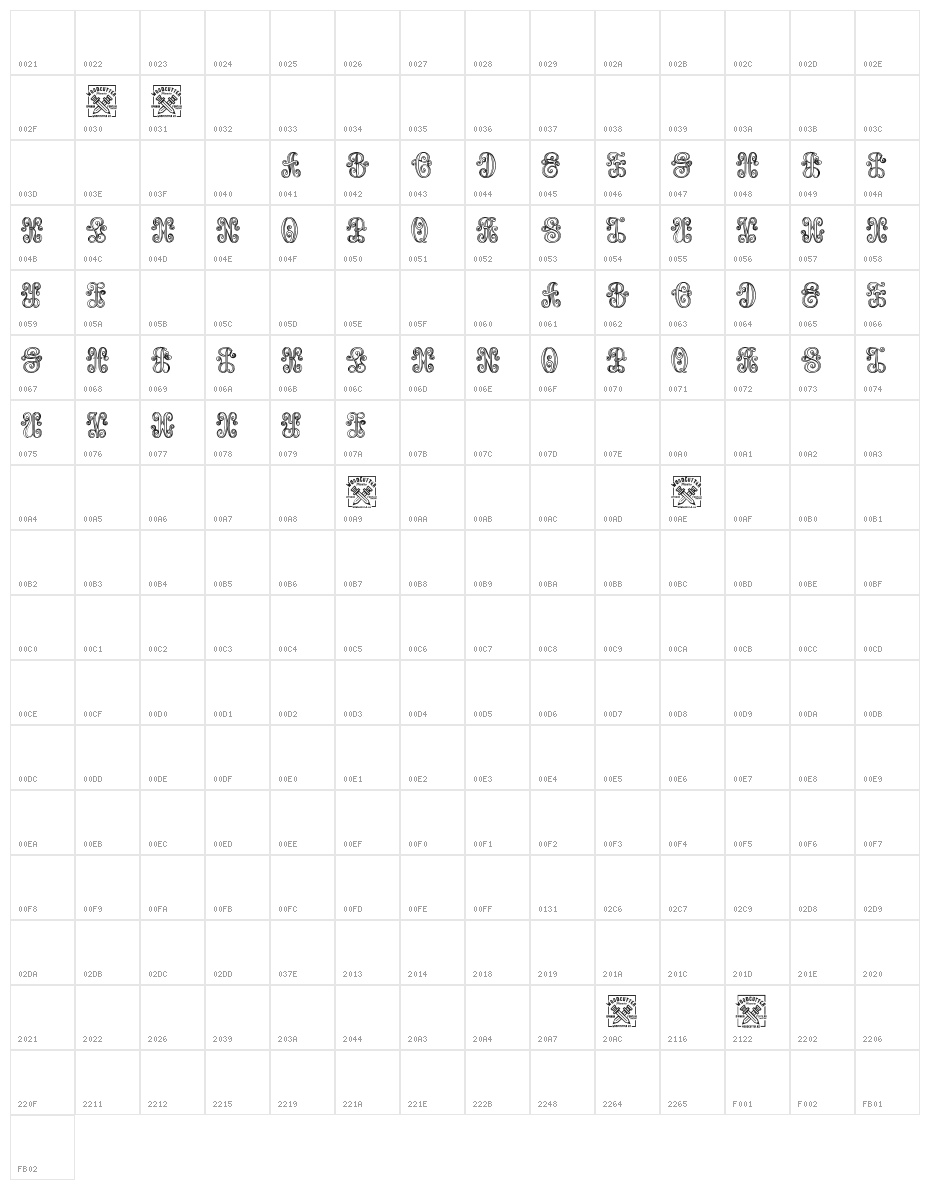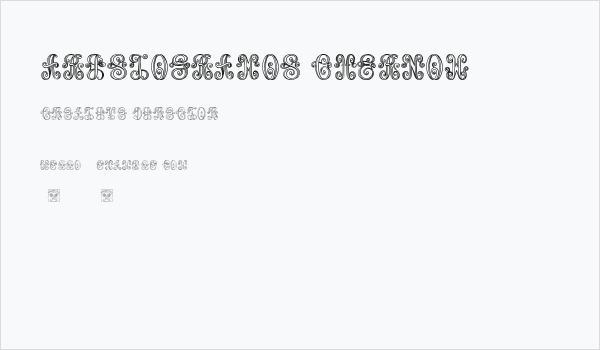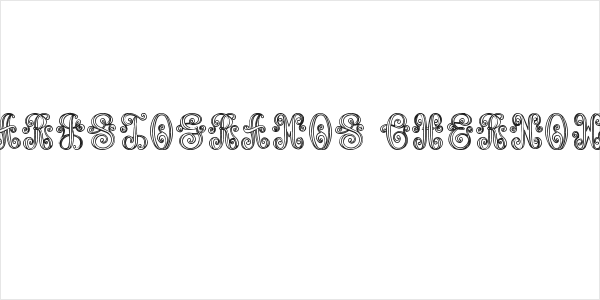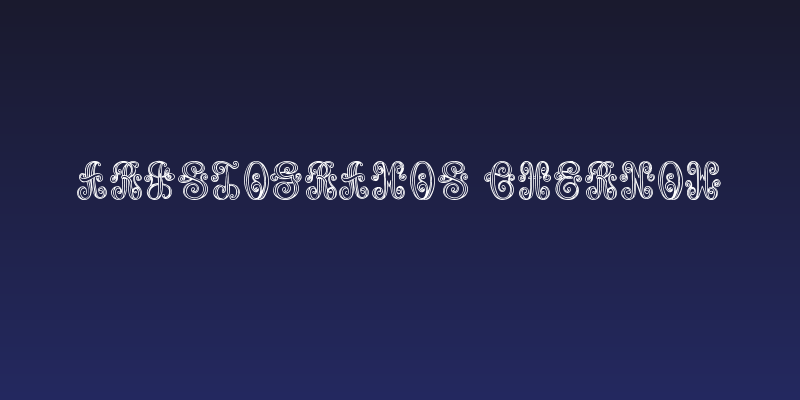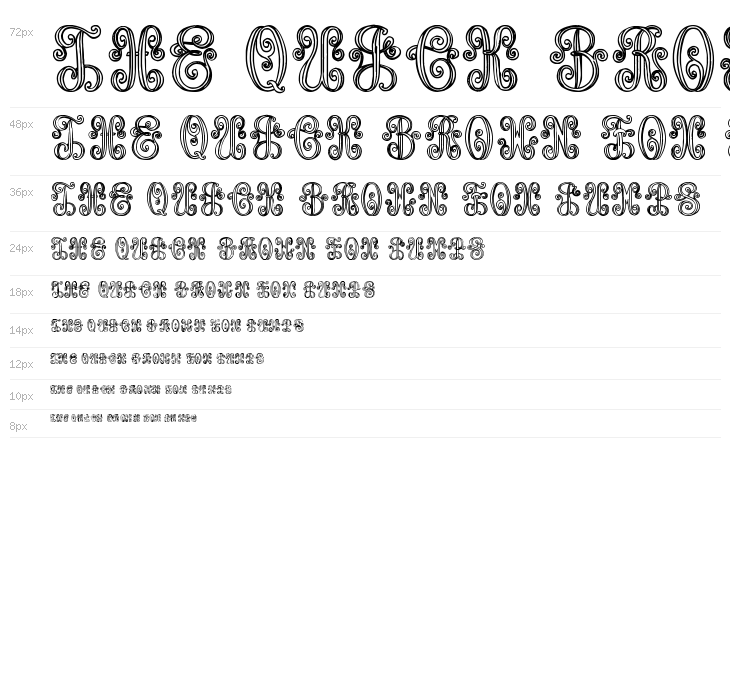
Aristogramos Chernow Font
Aristogramos Chernow Description
This font features an intricate and decorative style, characterized by elaborate swirls and loops that give it a vintage and ornate appearance. Each letter is crafted with a high level of detail, incorporating multiple lines and curves that intertwine, creating a sense of elegance and sophistication. The font maintains a consistent weight throughout, with a medium to high contrast in stroke thickness. The characters are evenly spaced, allowing for readability despite the complex design. This font is ideal for projects that require a touch of classic charm and artistic flair.
Overall StyleVintage
Use CaseLogos, Headlines, Decorative text
Proposed ProjectsIdeal for wedding invitations, vintage-themed posters, branding for luxury products, and decorative signage.